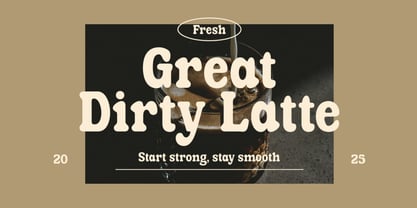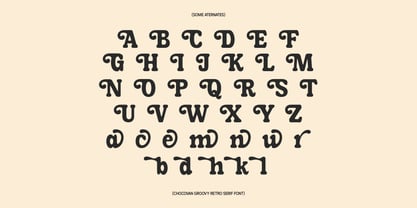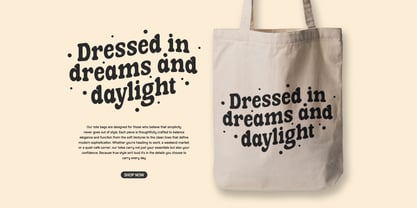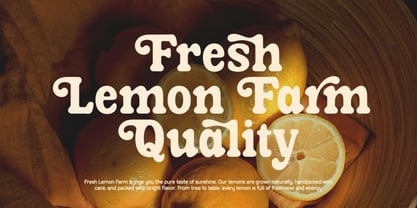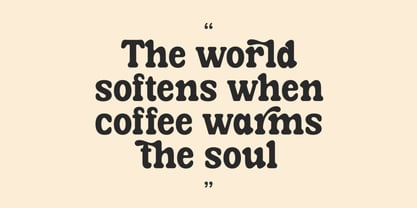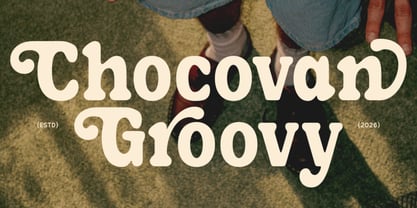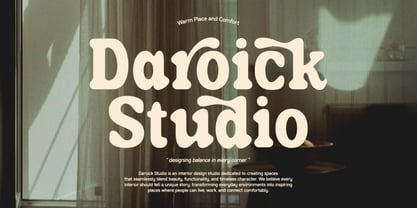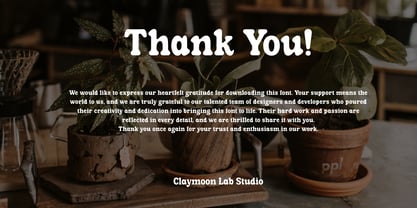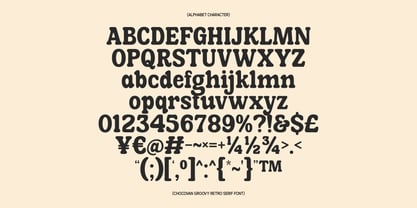
Chocovan Groovy
Chocovan Groovy — Retro Groovy Serif Typeface
Step into the warm, free-spirited world of Chocovan Groovy, a bold retro serif typeface that captures the irresistible charm of 1970s groovy culture with a fresh, contemporary sensibility. Every letterform is built around lush, organic curves, exaggerated swelling strokes, and playfully bouncy terminals that give each word an almost edible, tactile quality — rich, warm, and impossible to ignore.
What truly sets Chocovan Groovy apart is its extensive stylistic alternates system, offering multiple character variations that allow you to craft unique, custom-feeling compositions every single time. From swooping capital swashes to softened lowercase variants, the alternates open up a world of typographic possibility that keeps your designs feeling fresh, handcrafted, and distinctly personal.
+ Stylistic Alternates: Extensive set of alternate characters and swash variants for unique typographic compositions.
+ Full Character Set: Uppercase, lowercase, numerals, and standard punctuation.
Perfect For These Projects:
+ Branding & Logo Design: Building warm, personality-driven wordmarks, logotypes, and brand identities for lifestyle, food, and creative businesses.
+ Poster & Event Promotion: Designing retro-flavored headlines for music events, cultural festivals, and entertainment campaigns bursting with vintage energy.
+ Editorial & Publication Design: Setting expressive, character-rich title treatments for magazine covers, book covers, and editorial spreads with a groovy aesthetic.
+ Digital & Social Media Content: Creating scroll-stopping quote cards, social media graphics, thumbnails, and digital campaign visuals with retro charm.
+ UI & Web Design: Applying bold, warm serif typography to website headers, landing pages, and digital brand experiences with a distinctive retro personality.